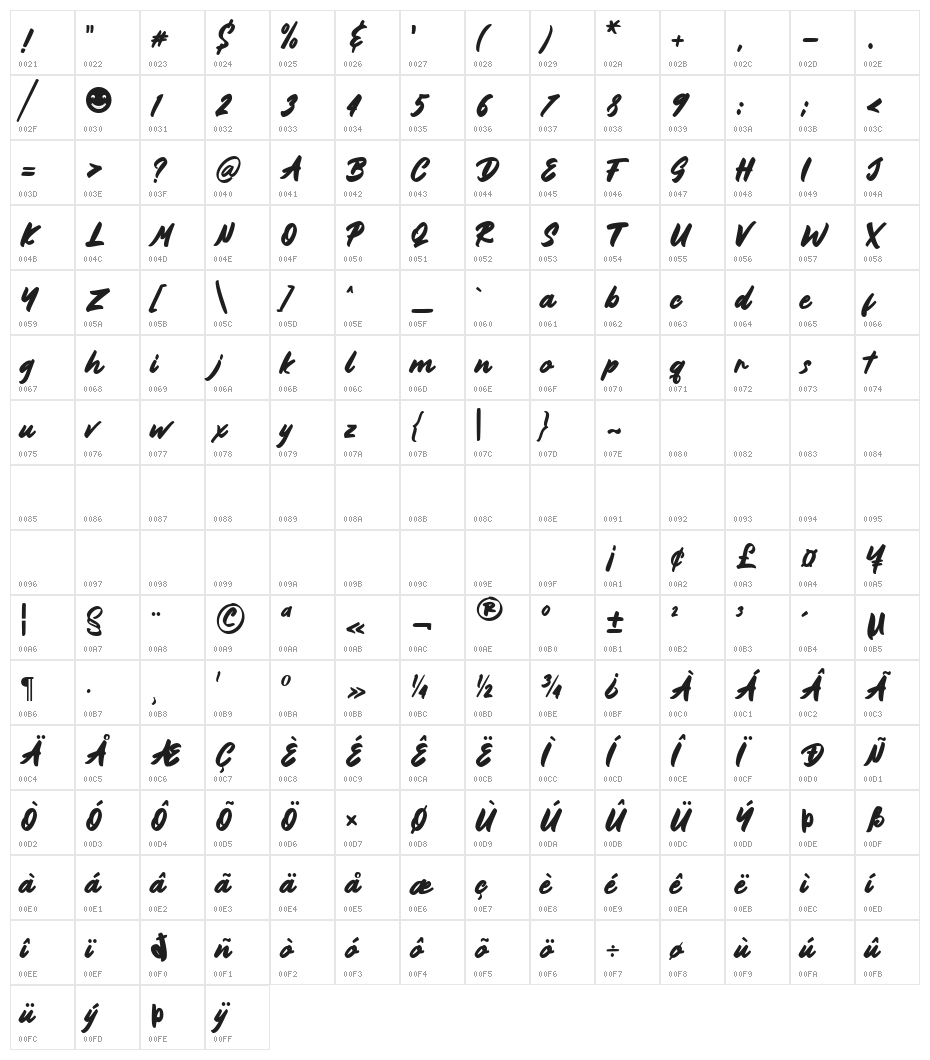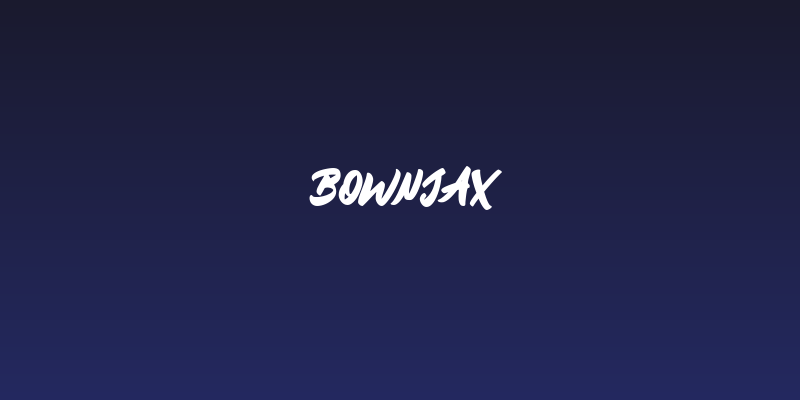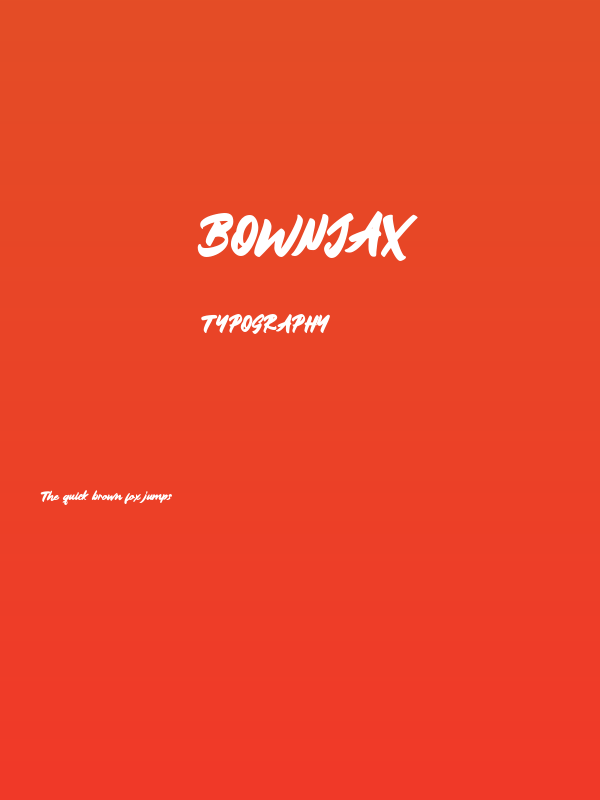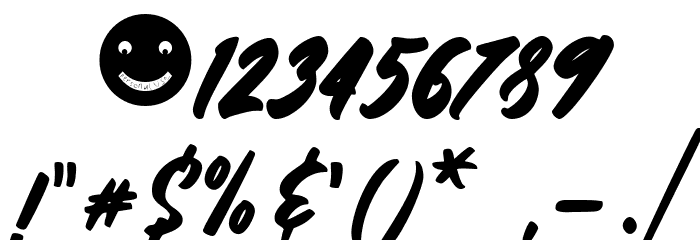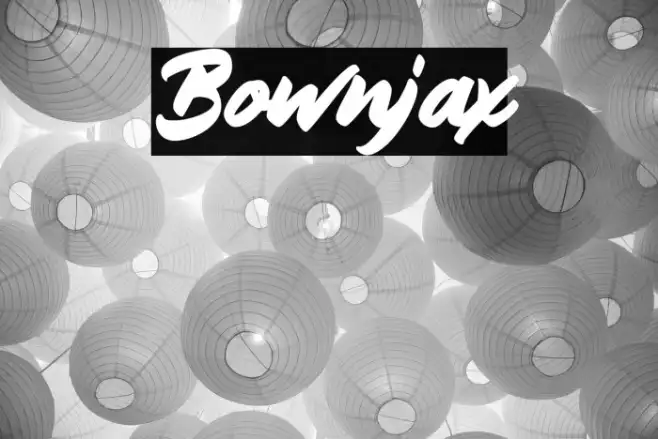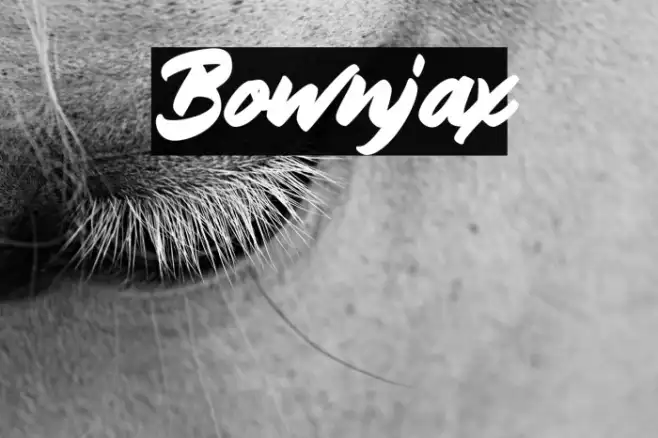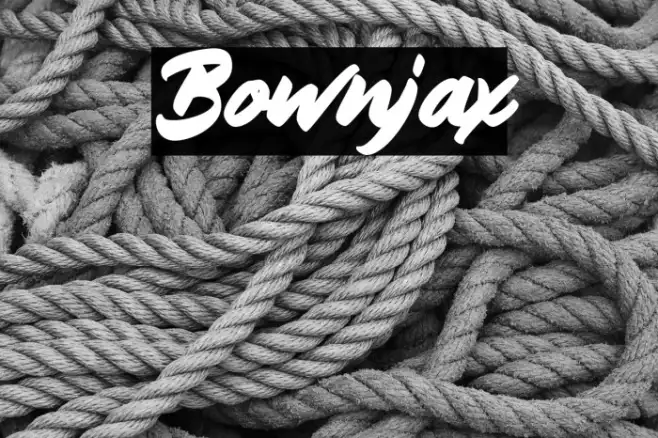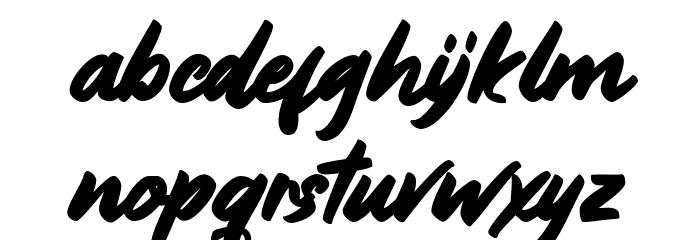
Bownjax Font
Bownjax Description
This font exhibits a bold and dynamic script style, characterized by its fluid and energetic strokes. The letters are connected in a cursive manner, giving it a handwritten appearance. The uppercase letters are slightly larger and more pronounced, while the lowercase letters maintain a consistent flow. Numbers and special characters are designed to match the overall aesthetic, with a playful and expressive touch. The font's thick strokes and rounded edges contribute to its friendly and approachable vibe, making it suitable for creative and informal applications.